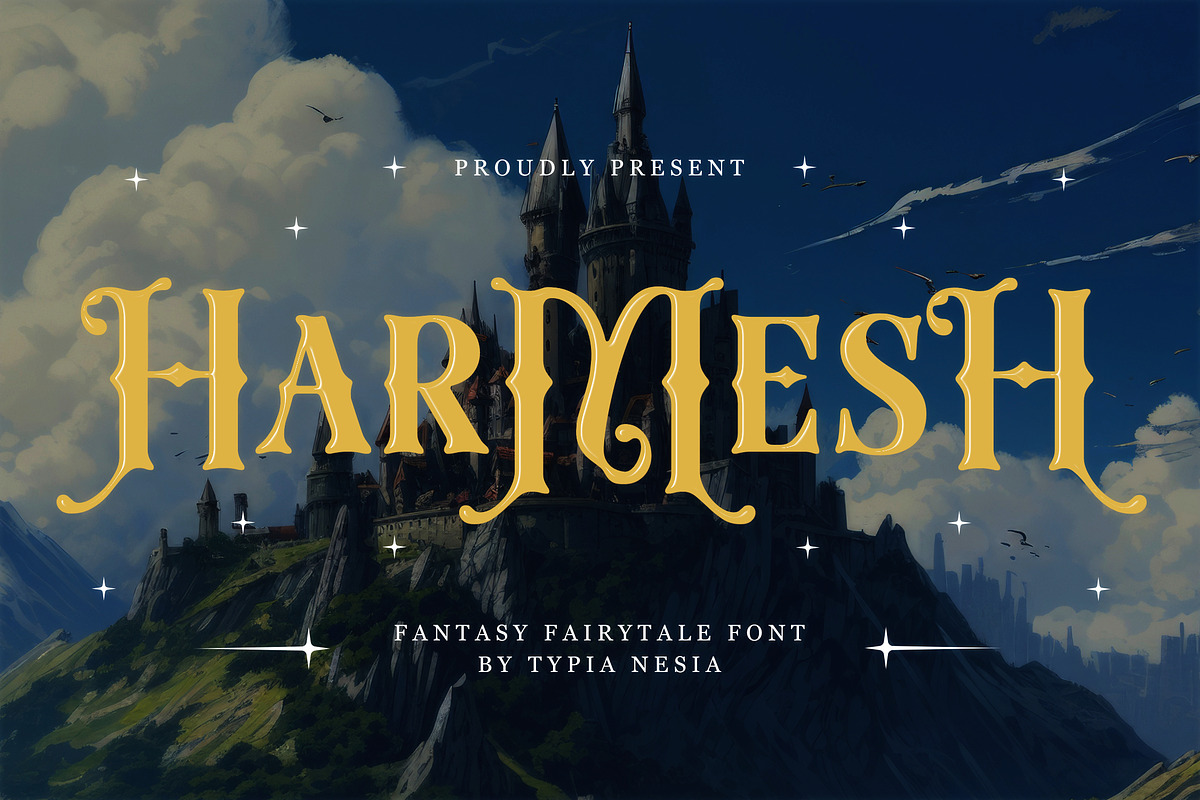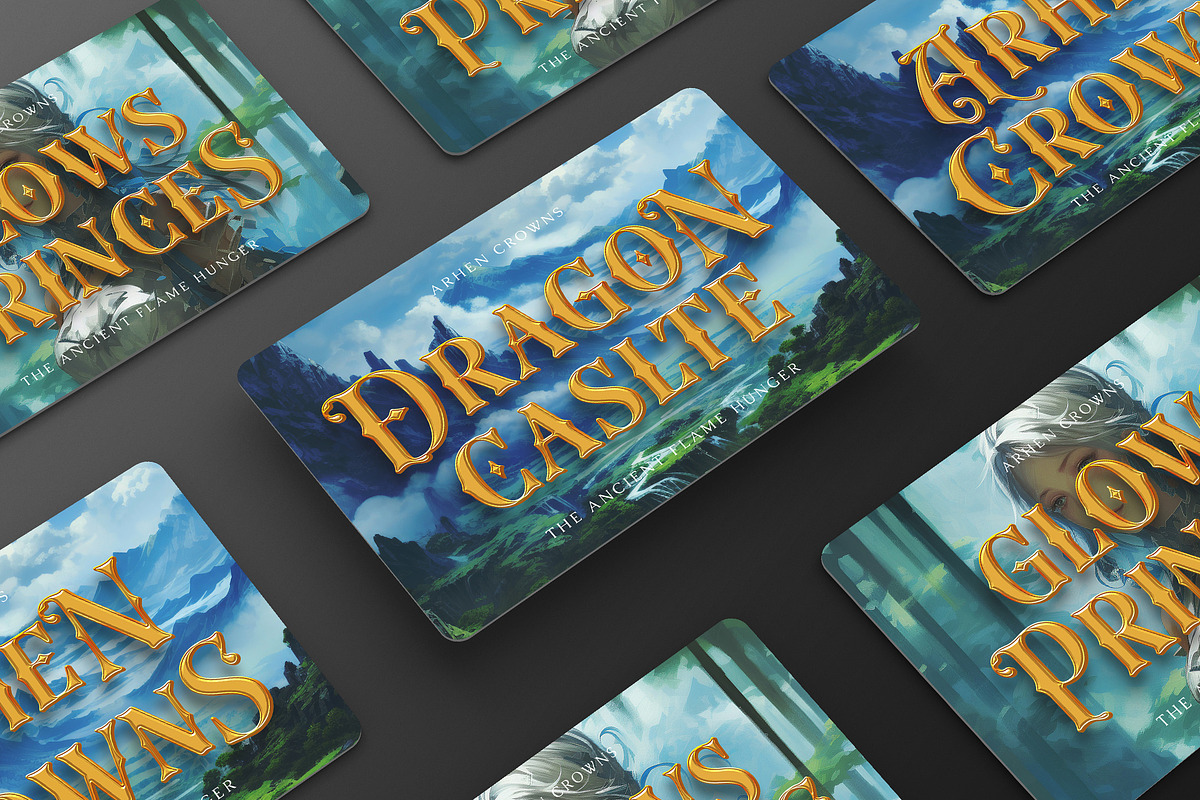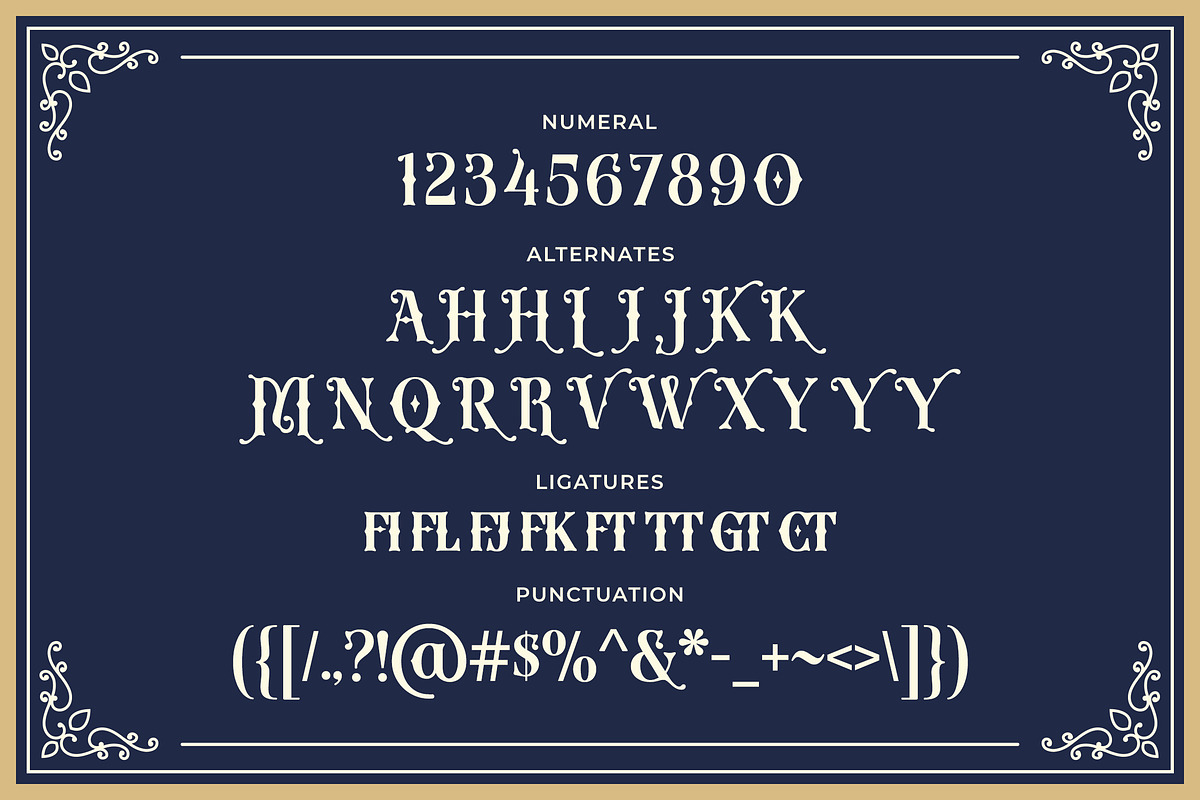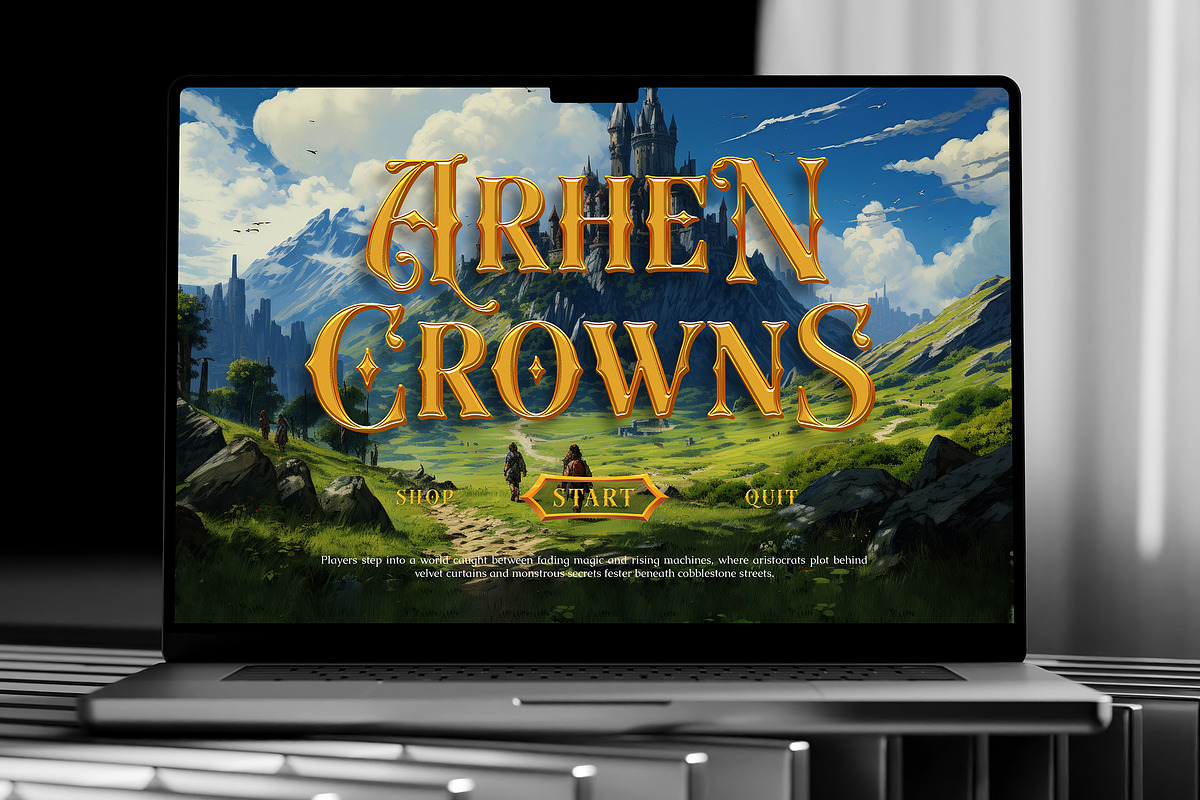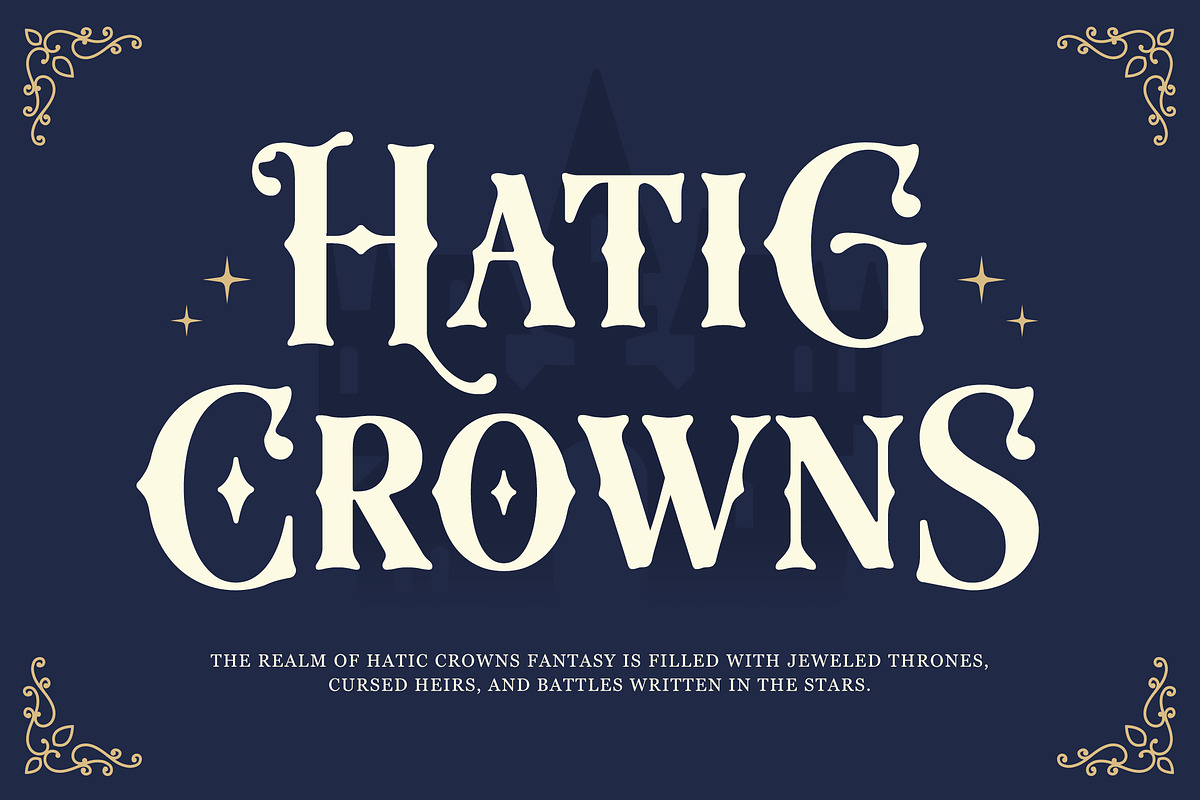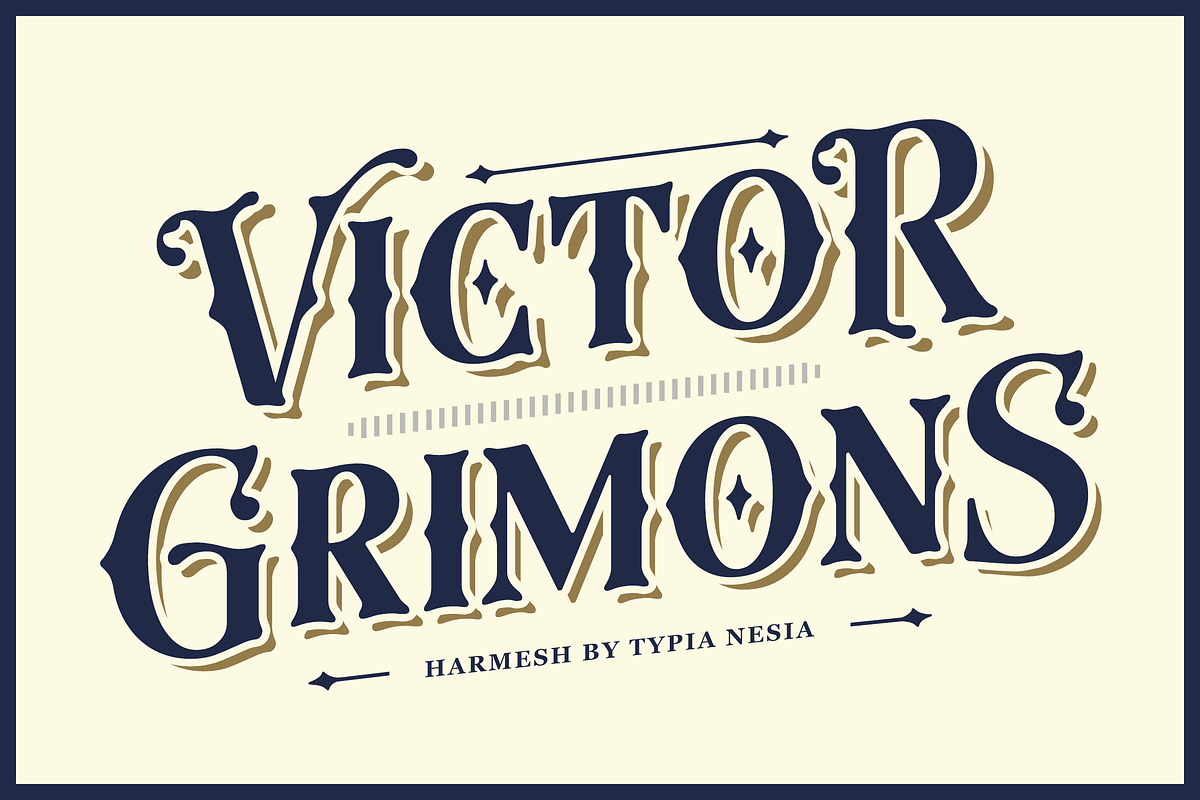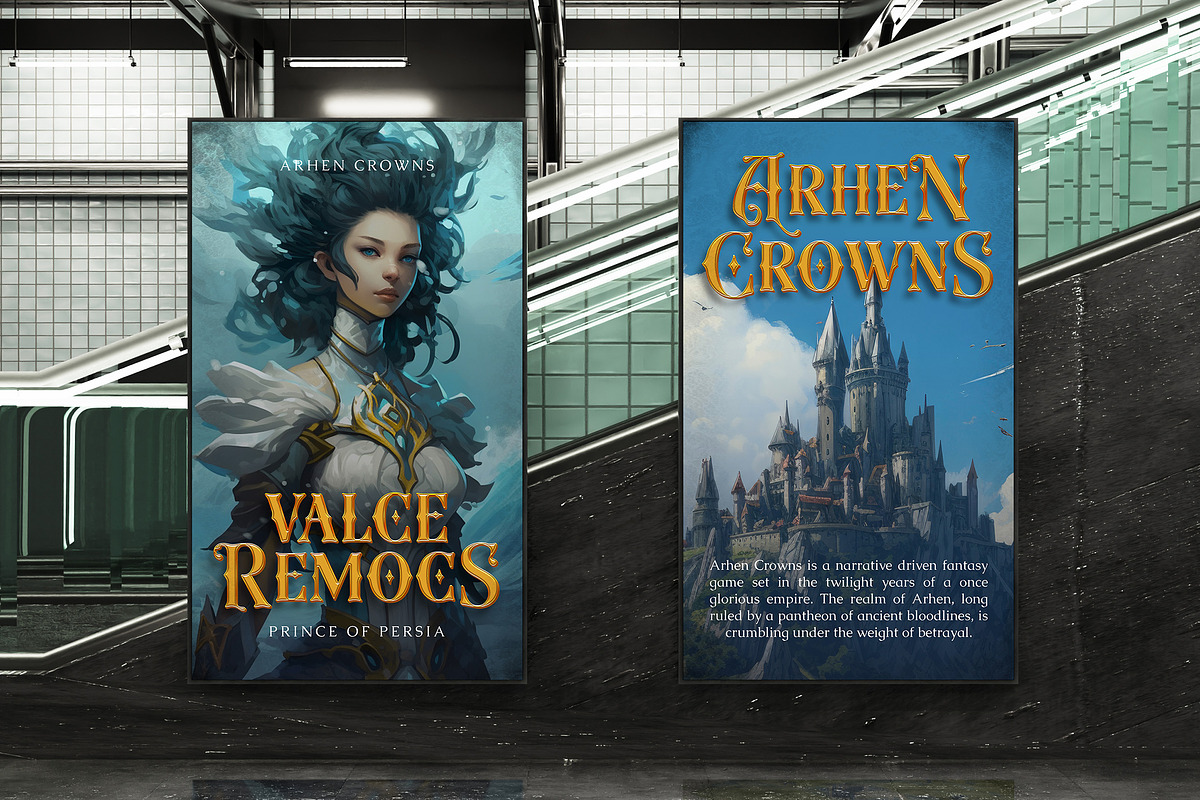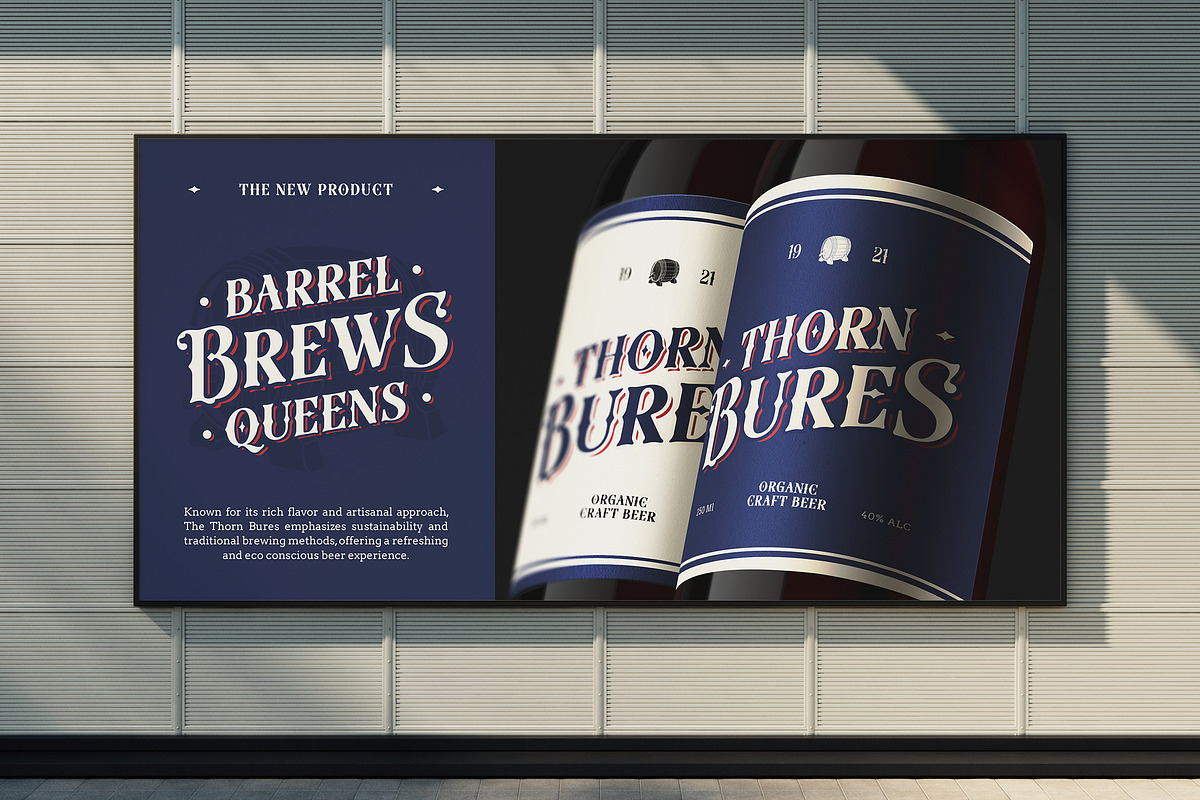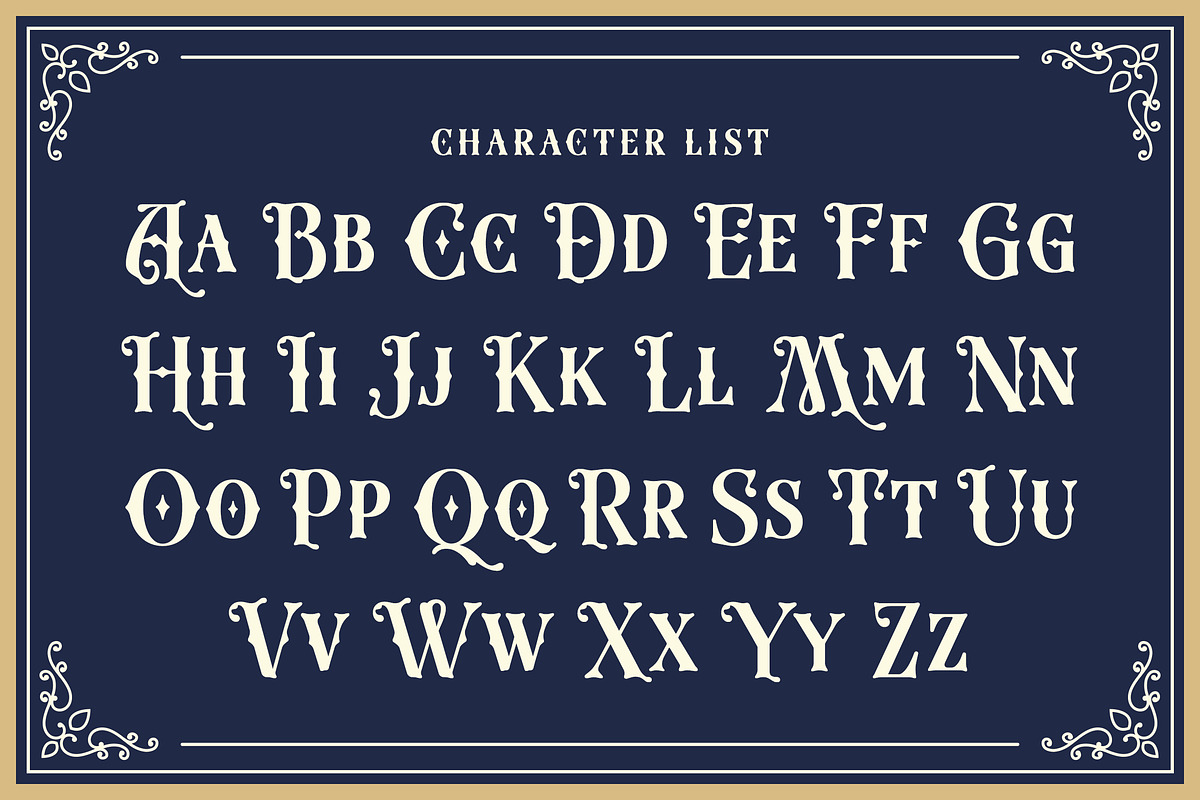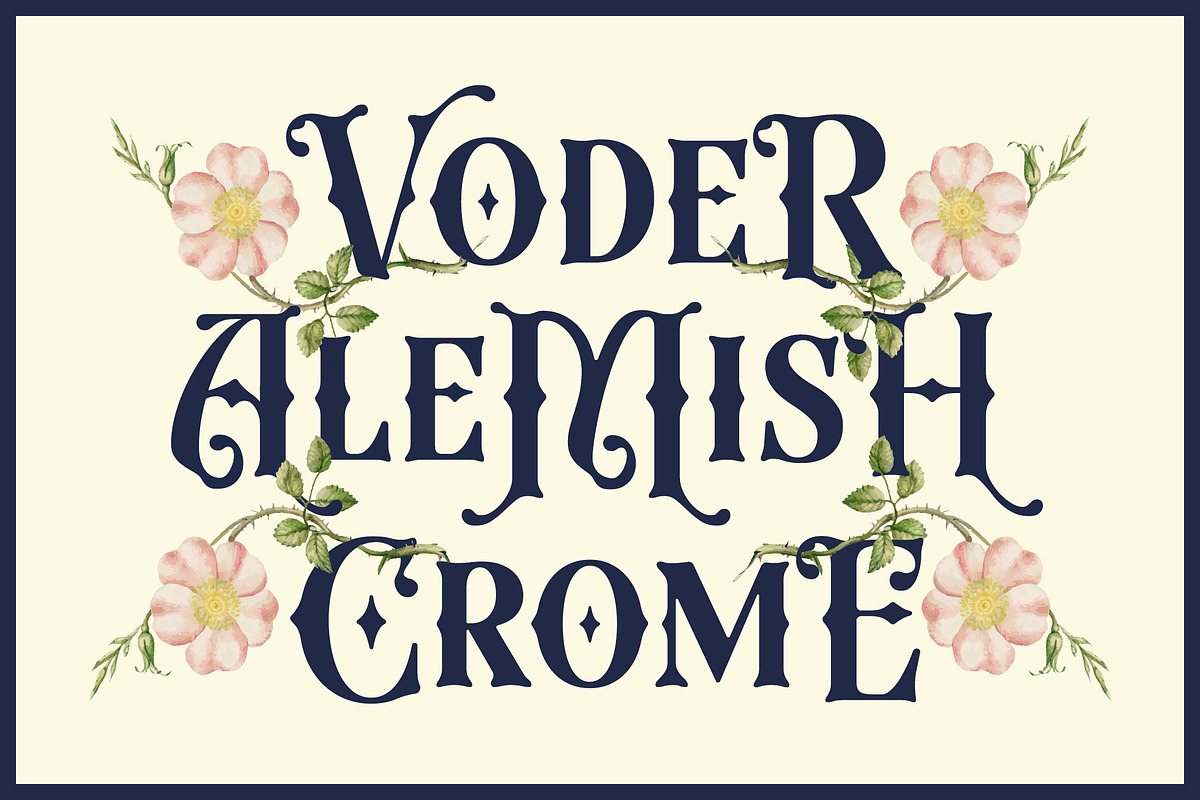
Harmesh - Classic Magical Fantasy
Harmesh - Classic Magical Fantasy Game Display Font - Vintage & Royal Luxury Font
Harmesh is a stunning fantasy fairytale font that transports your designs into a world of magic and elegance. With its ornate letterforms, decorative ligatures, and a full set of alternate characters, this typeface is a perfect choice for eye-catching game titles, enchanting book covers, sophisticated craft branding, posters, advertising, logo design, packaging, merchandise and any projects that require a touch of whimsy and vintage charm. Inspired by classic fairytales and medieval aesthetics, this font provides designers with the tools to create typography that is both powerful and enchanting, making any project feel truly special.